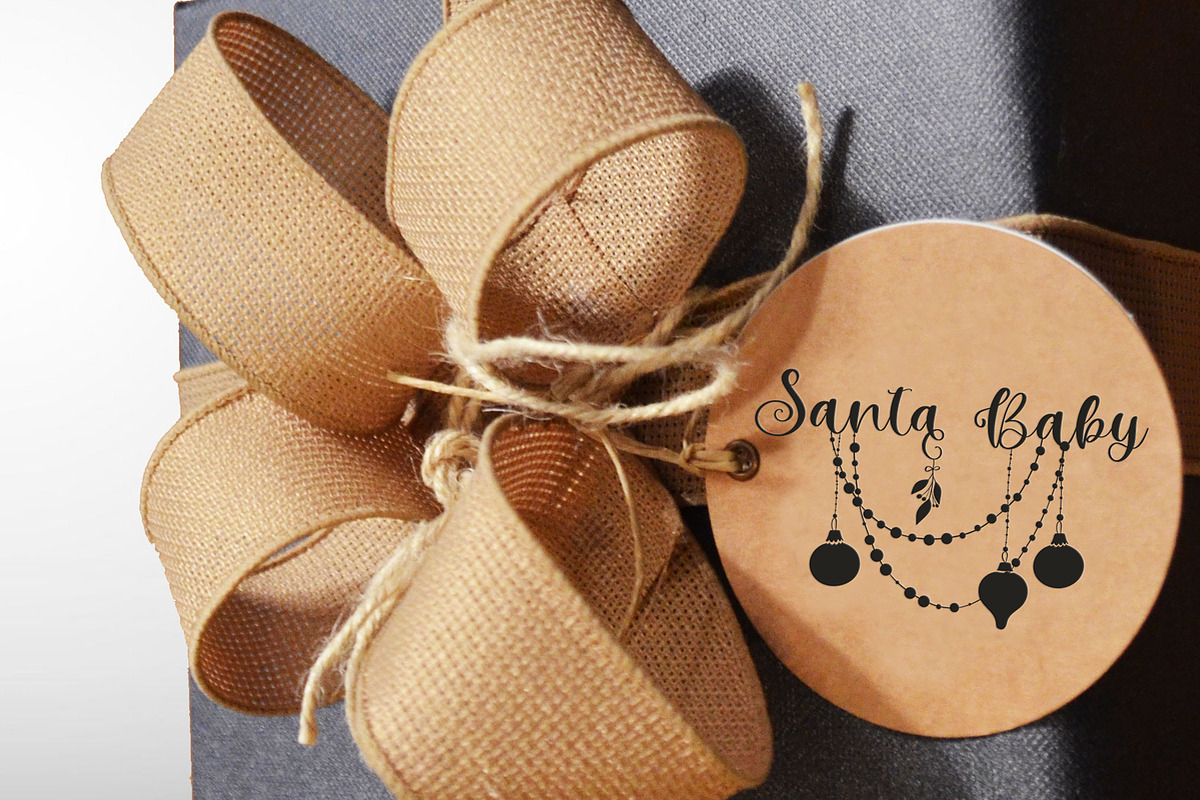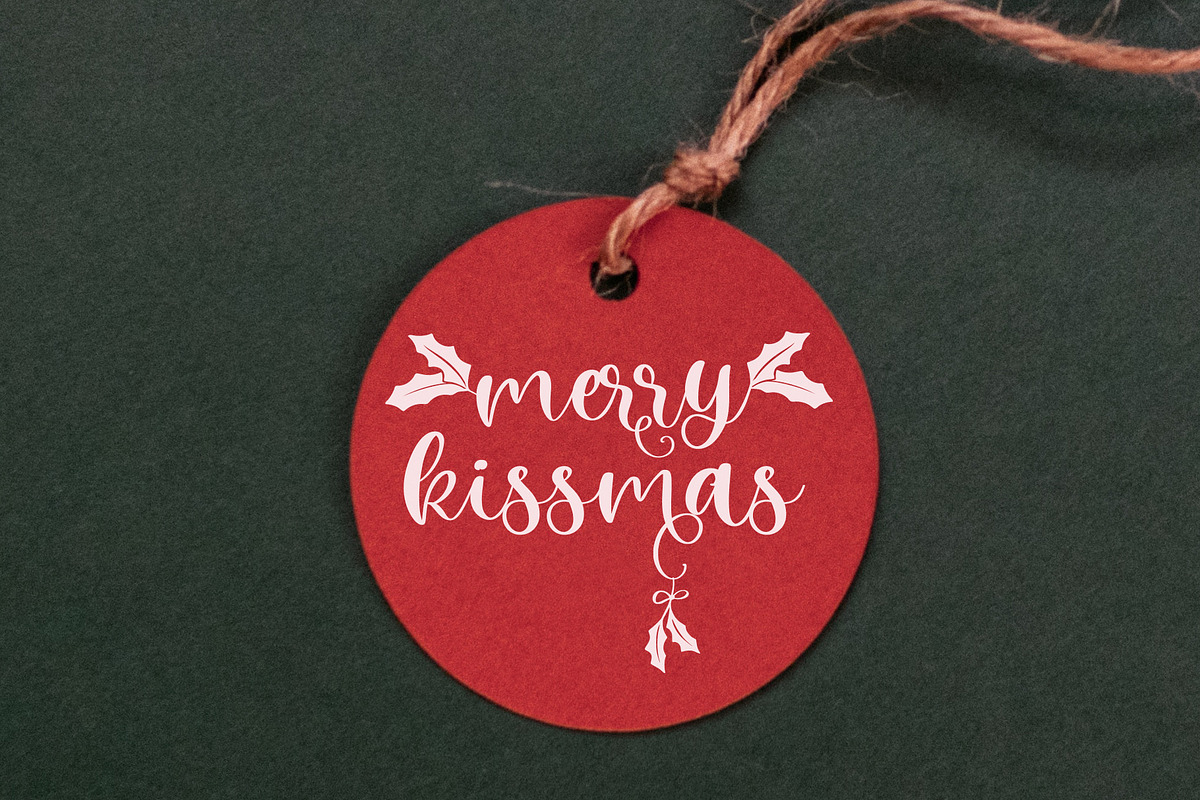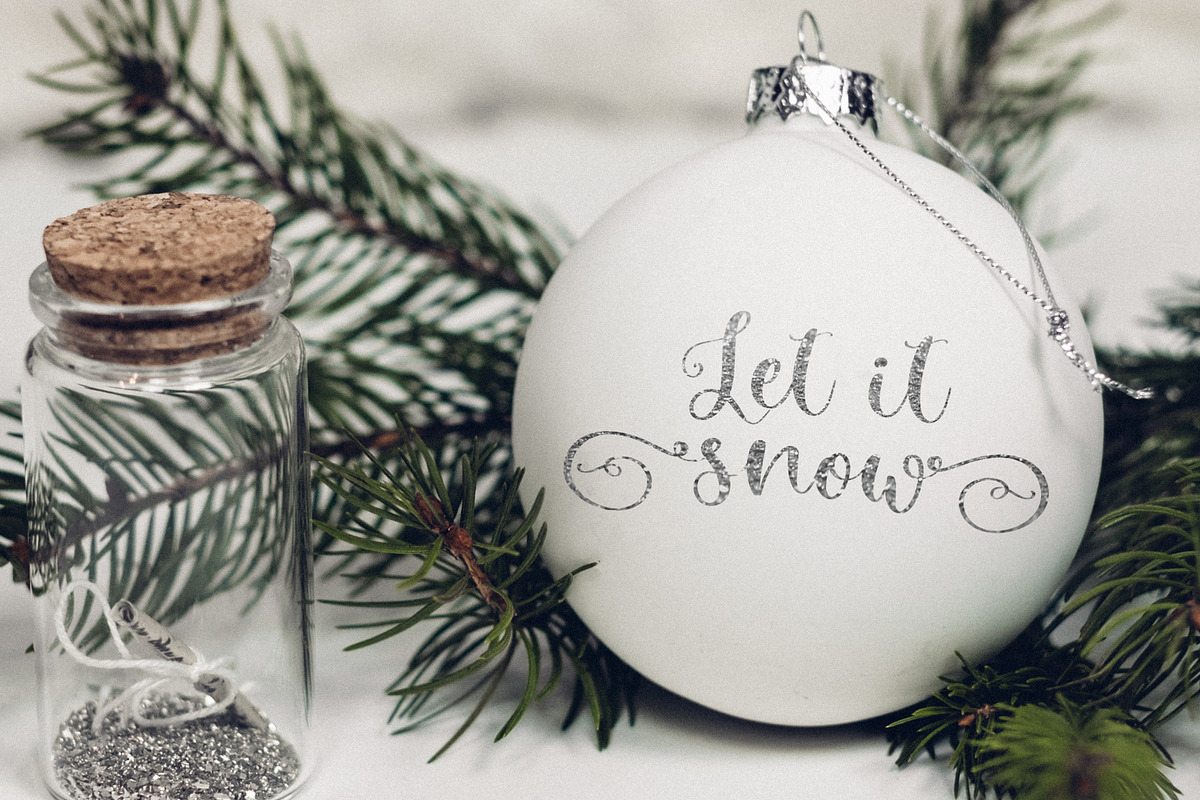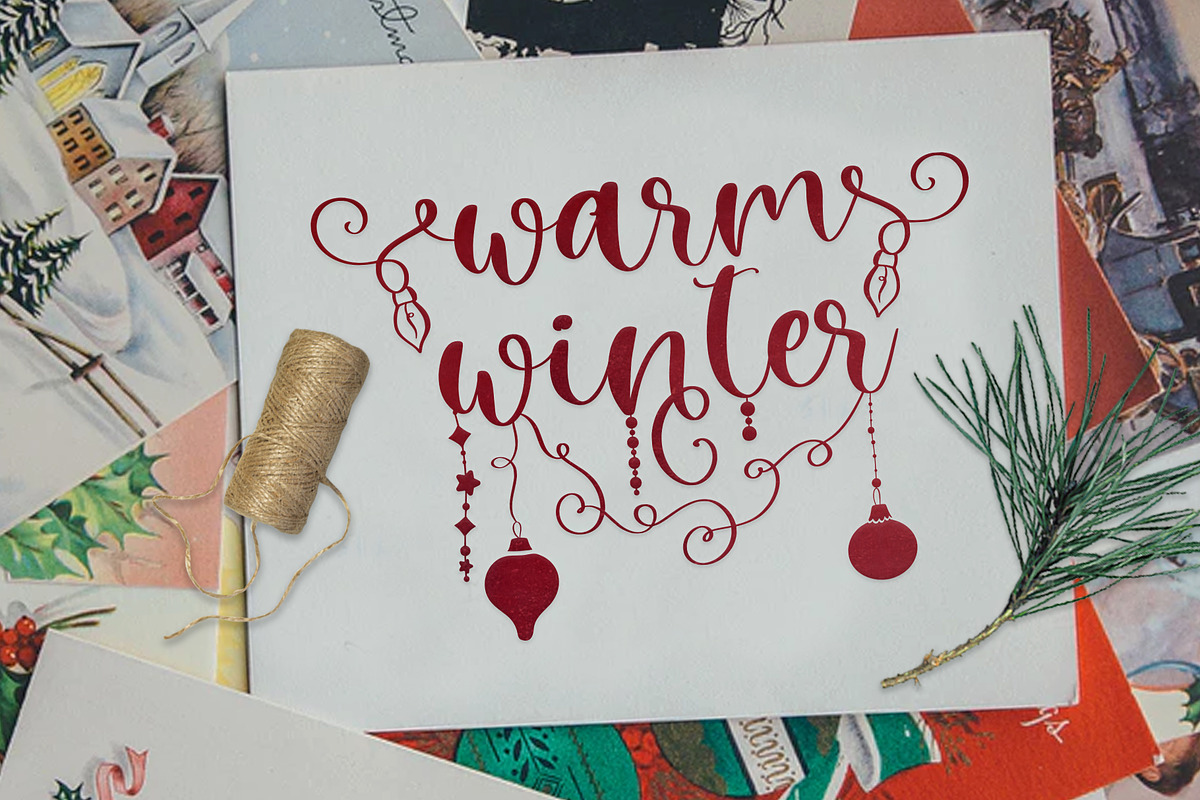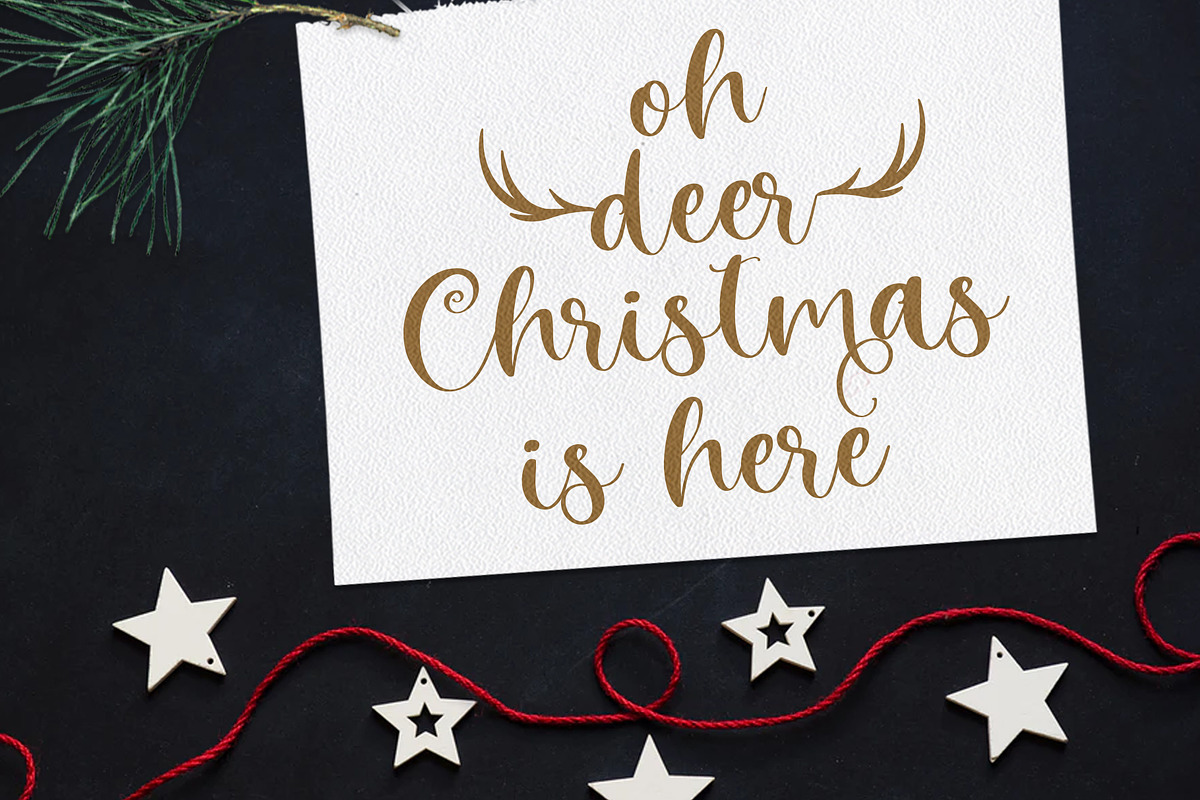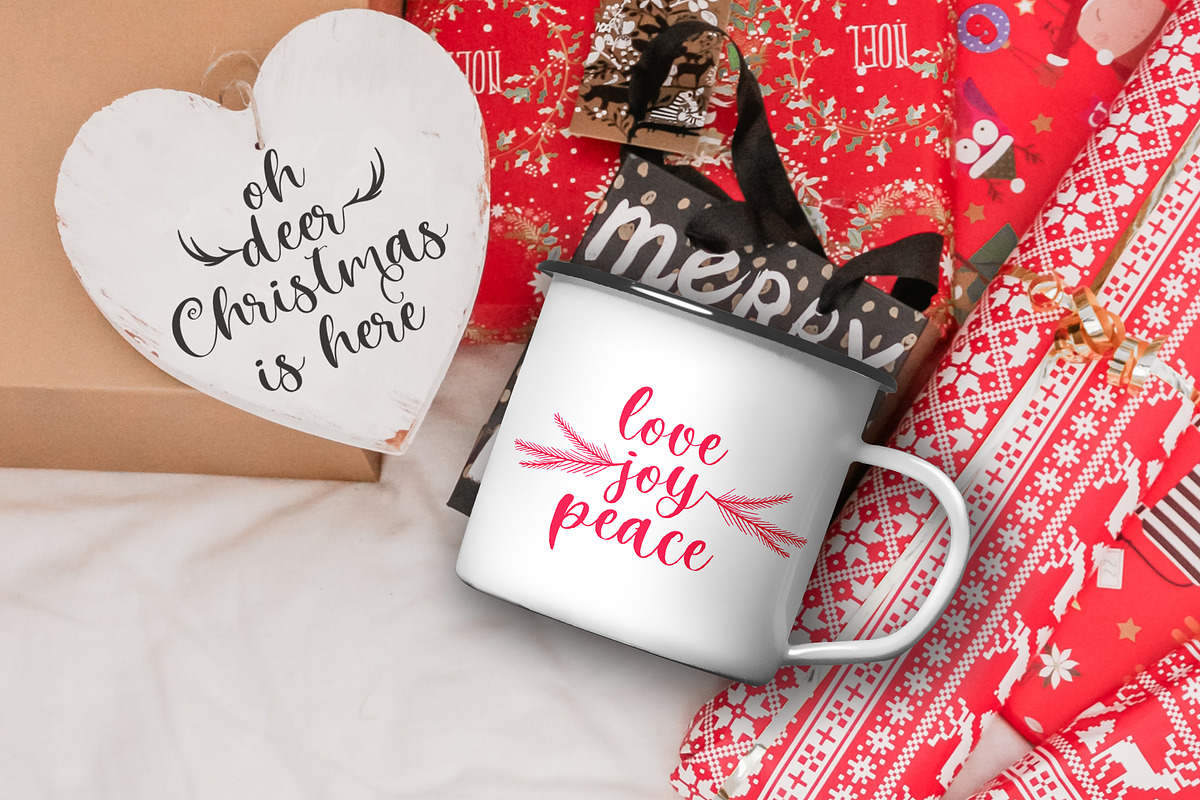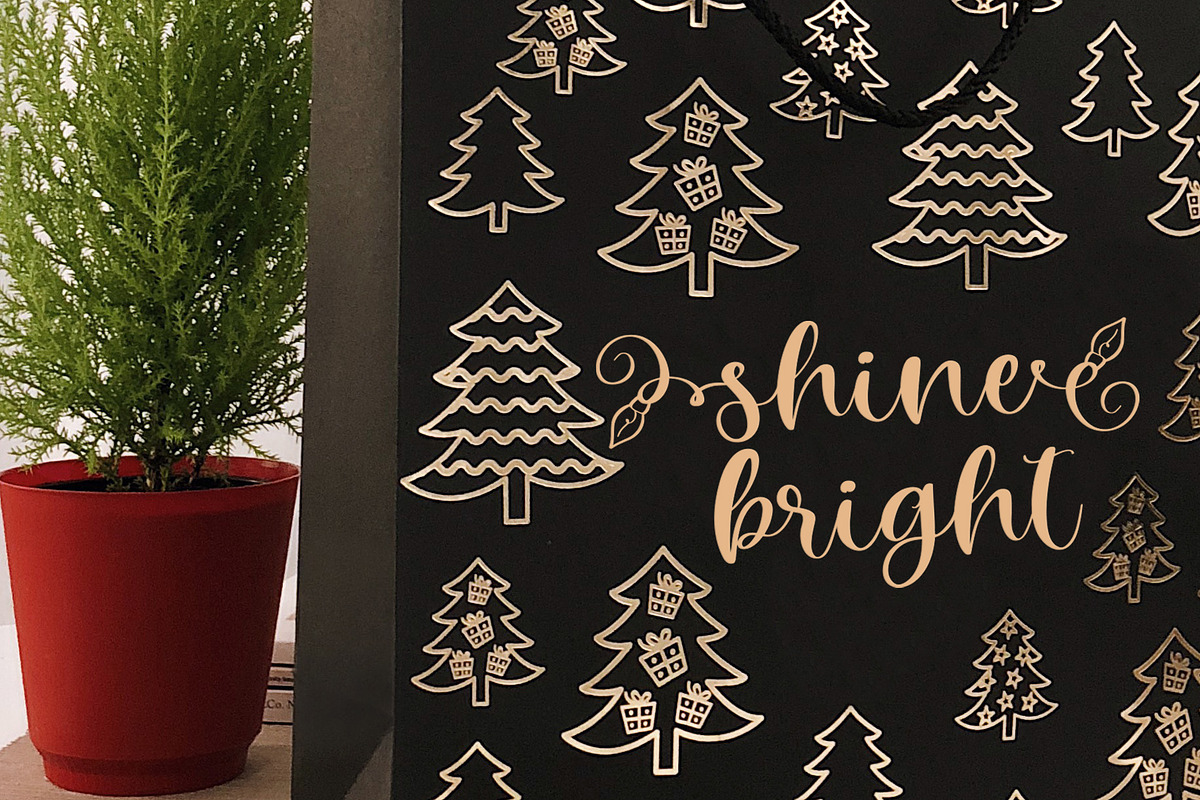
Winter Time. Decorative Script Font
Includes many alternates & Doodles
Why Winter Time. Decorative Script Font is worth a look
Winter Time. Decorative Script Font by CallMeStasia fits naturally into Branding, posters, packaging, typography.